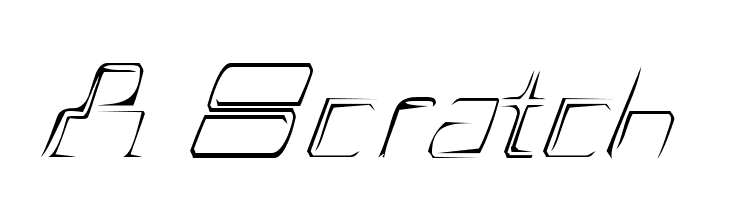
A futuristic, geometric font with continuous line characters and a modern aesthetic.
A geometric, grid-based font with a modern, architectural style.
A modern, geometric font with sharp angles and a futuristic style.
A bold, rounded font with a futuristic and technological style.
A futuristic, angular font with a dynamic, italicized style.